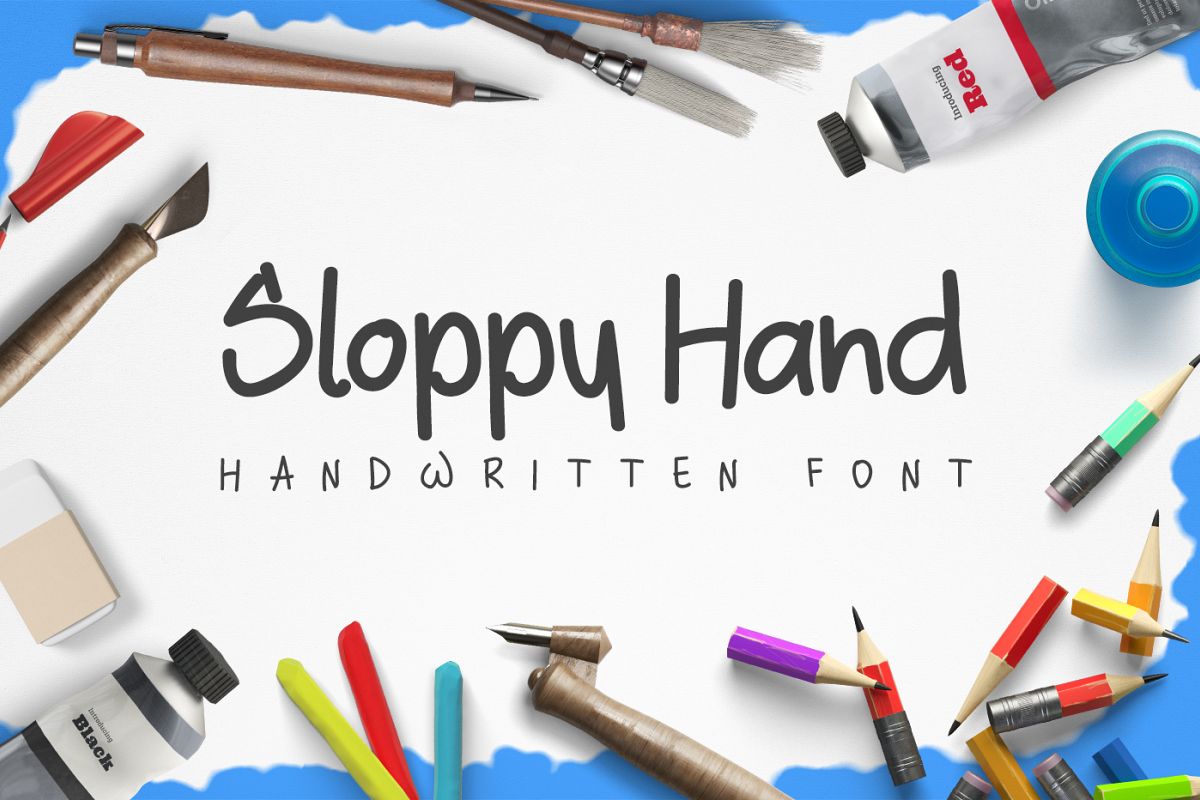
Sloppy Hand - a Handwritten Font
Take a look at this handwritten font that I made for you guys, which can be used for logo design, presentations, headlines.
Works great with taglines and with any playful design you might be working on.
The idea behind the font was to keep it as authentic as possible, with all of its imperfections! You can see its rough and sloppy (living up to its name), which makes it look real and familiar.
The whole font was handwritten by myself using a Wacom Intuos Pro S tablet, Illustrator and Fontself.